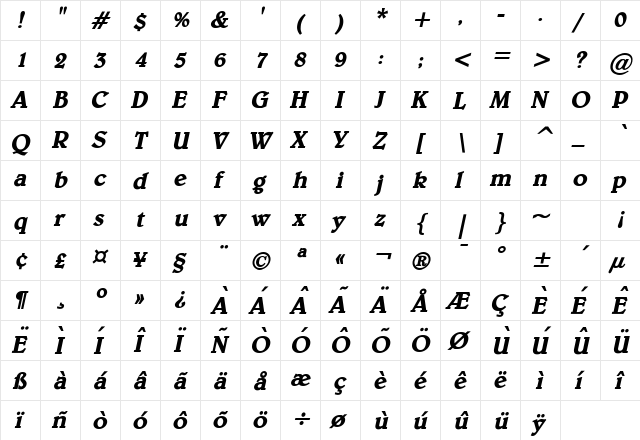
Blew Bold Italic
Design Context for Blew Typeface
Blew offers clean, dependable letterforms without strong stylistic allegiance, making it a practical choice for designers who need flexibility. The dynamic lean of this cut emphasises speed and emphasis in any layout. The heavy weight commands attention and anchors typographic hierarchies.